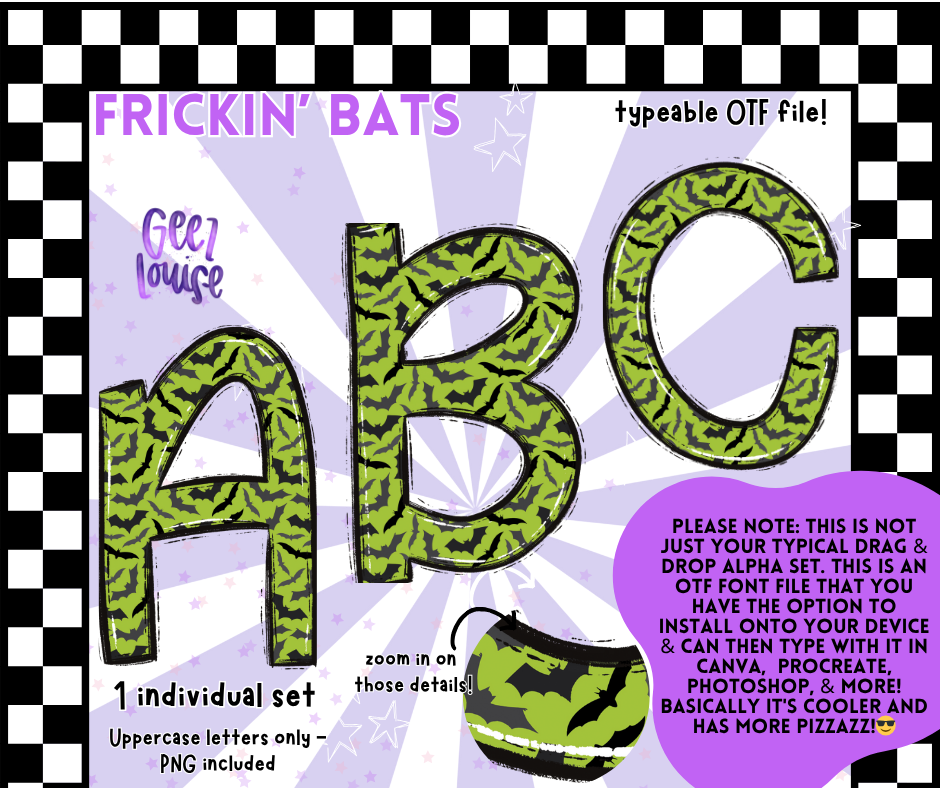
Frickin’ Bats Halloween OTF Font + PNG Alpha Set
Because it’s not Halloween without some frickin’ bats. 🦇
This neon green and black font is loaded with repeating bat silhouettes and spooky sass. Frickin’ Bats includes:
🦇 Uppercase letters only
🦇 Clean edges with a distressed outline for grungy flair
Whether you're designing for creepy cute tees or full-on bat chaos, this one's a must for your Halloween toolkit.